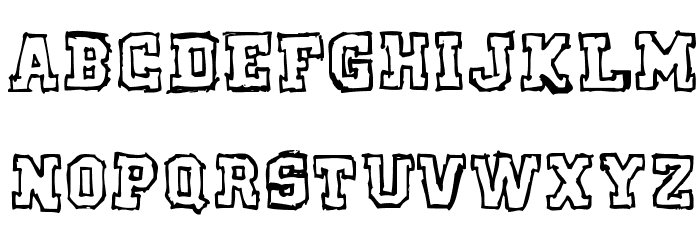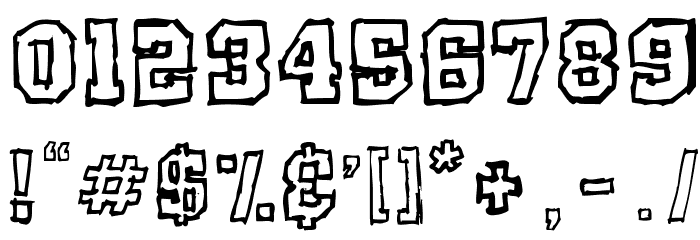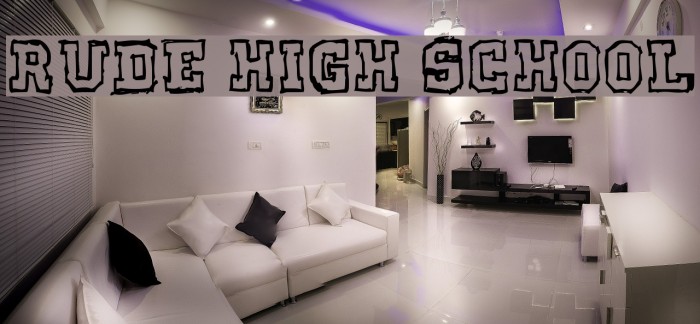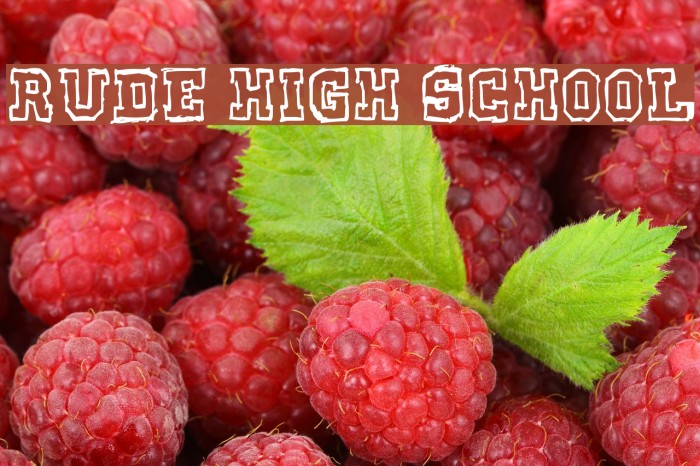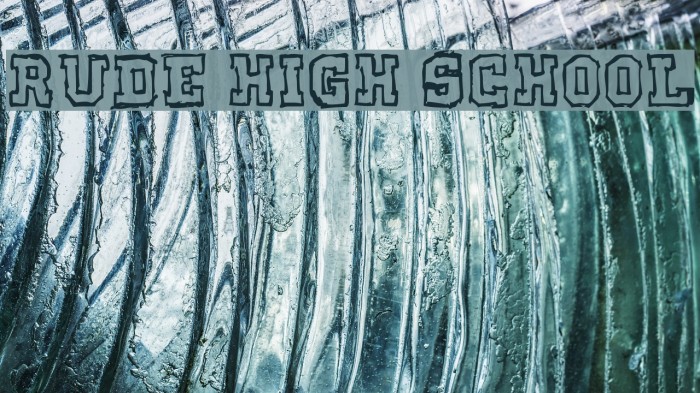
Rude High School Font
This font features a bold, rugged style with a distressed, hand-drawn appearance. The characters are outlined with a thick, uneven stroke, giving them a rough and edgy look. The uppercase and lowercase letters maintain a consistent style, with a slightly irregular shape that adds to the font's unique character. Numbers and special characters are designed with the same bold outline, ensuring a cohesive appearance across all glyphs. The font's overall aesthetic is reminiscent of graffiti or street art, making it ideal for projects that require a bold, attention-grabbing typeface.
A bold, distressed font with a rugged, hand-drawn style.
- Proposed Projects: Ideal for posters, album covers, streetwear branding, and urban-themed designs.